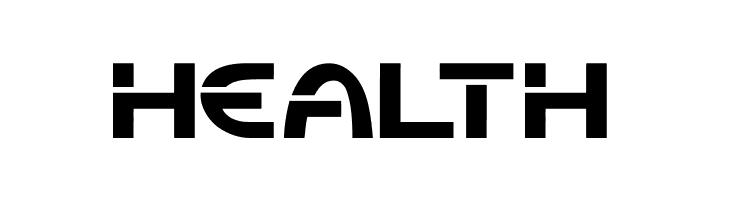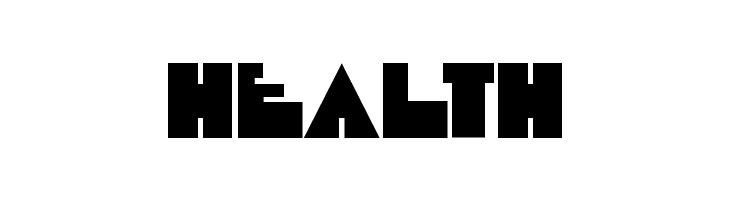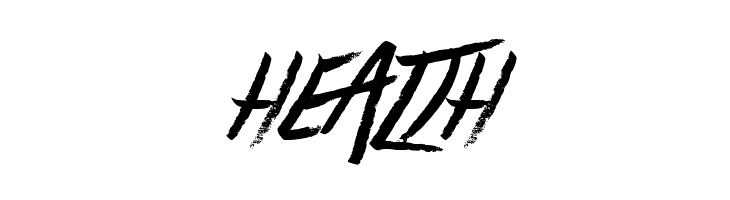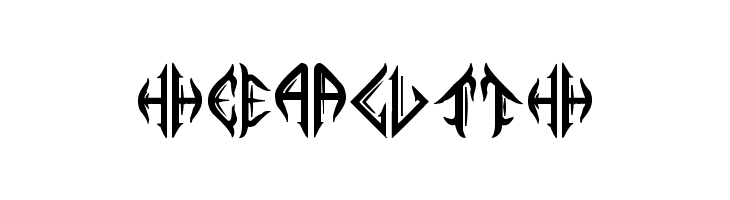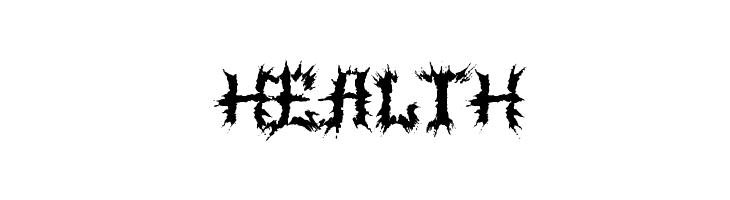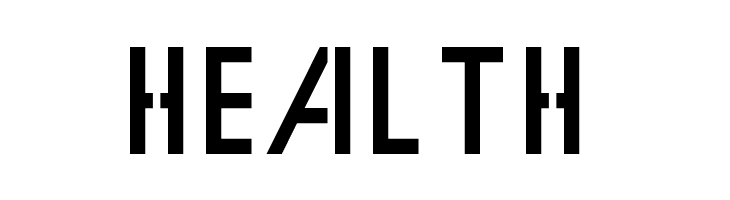
• Marvel's The Punisher
( JK Typeface - hiltonbrasfoot.wixsite.com/jktypeface )
• Masquero
A flowing, cursive font with elegant, sweeping lines and a dynamic appearance.
• MB EvilGhost
( Irina ModBlackmoon - modblackmoon.com/ )
A bold, thorny font with a gothic, horror-inspired aesthetic.
• MB-HorrorHouse
( Irina ModBlackmoon - modblackmoon.com/ )
A jagged, eerie font ideal for horror themes.
• Meastro Display
( Fonts by Ferry Ardana Putra )
A bold, geometric font with sharp angles and strong visual impact.
• Mecha Oblique Mecha Oblique
A bold, angular font with a futuristic, mechanical design.
• Mediogramo
An ornate, gothic-style font with intricate, angular designs.
• Mediogramo
A bold, gothic-style font with intricate, symmetrical designs and sharp angles.
• Mega Team
A bold, dynamic brush script with expressive, fluid strokes and a handmade feel.
• Mega Team